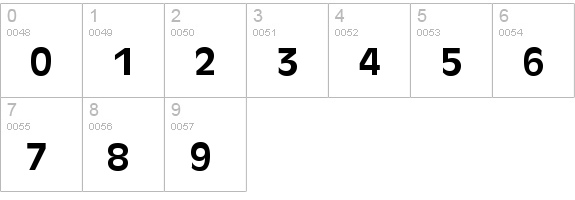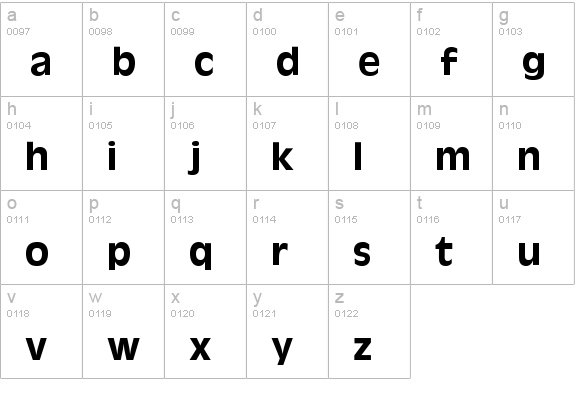
Antique Olive T Medium Font Details
Antique Olive T Medium is a balanced, medium-weight variant in the Antique typeface family \xE2\x80\x94 well suited to sub-headlines, navigation, and balanced editorial work.
The Antique Olive T Medium font is a classic and timeless typeface that exudes elegance and sophistication. Its medium weight strikes the perfect balance between boldness and subtlety, making it a versatile choice for a wide range of design projects. This font features unique letterforms with a touch of vintage charm, adding a sense of nostalgia to any text it graces. Its clean lines and distinct character make it ideal for both headlines and body text, ensuring readability and visual appeal. Best of all, the Antique Olive T Medium font is available for free download at FontsMarket.com, allowing designers and creatives to access this stunning typeface without any cost. Don't miss out on the opportunity to enhance your projects with this exquisite font that combines tradition with modernity.